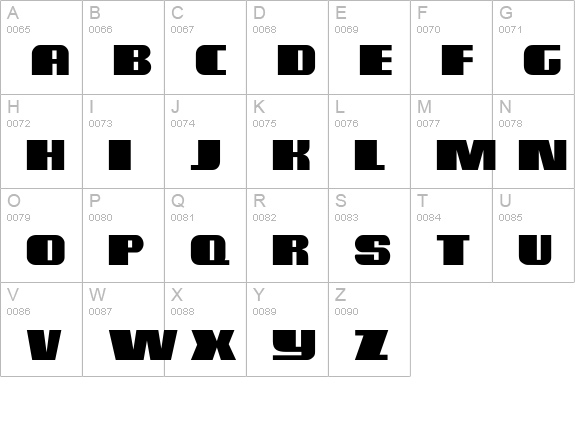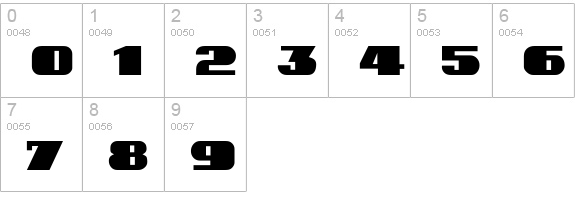
BlutussCaps Font Details
BlutussCaps font is a versatile and modern typeface that exudes elegance and sophistication. With its clean lines and unique style, this font is perfect for a wide range of design projects, from branding to editorial layouts. The distinctive caps in this font add a touch of class to any text, making it stand out and grab attention. What sets BlutussCaps font apart is not only its sleek design but also its accessibility. This stunning font is available for free download at FontsMarket.com, allowing designers and creators to easily incorporate it into their work without any hassle. Whether you're working on a logo, poster, website, or any other design project, BlutussCaps font is sure to elevate your content and give it a polished and professional look. Download this font today and see the difference it can make in your designs!